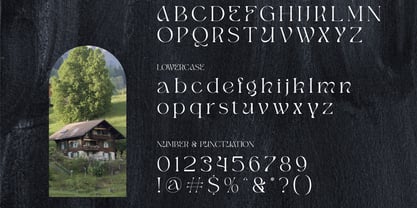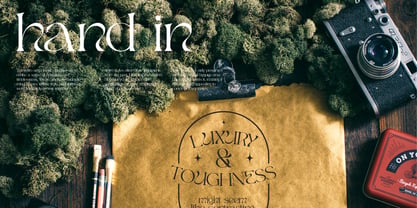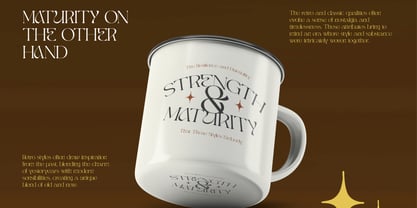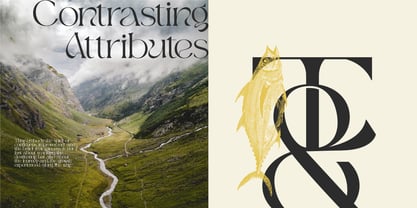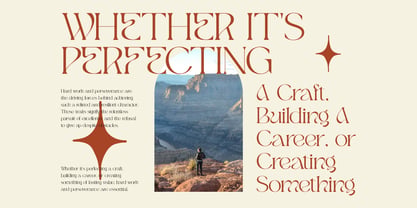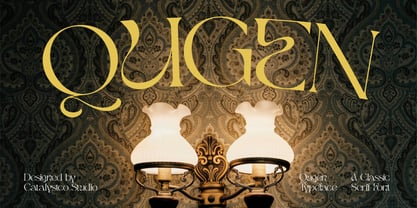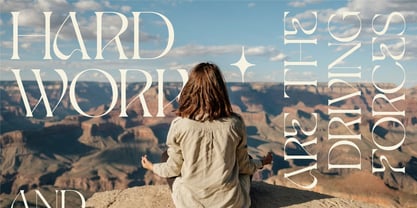
Qugen
Qugen is a sophisticated serif typeface that blends vintage charm with modern form. Featuring sharp high-contrast strokes and expressive letterforms, Qugen adds a dramatic flair to any project. This font includes uppercase, lowercase, numerals, punctuation, and a unique set of alternates for extra visual style. Qugen is ideal for projects that require a sophisticated and editorial tone, such as luxury branding, magazine layouts, fashion lookbooks, or upscale product packaging. Its high-contrast strokes and ornate alternates make it perfect for impactful titles, logos, and statements where visual elegance is key.